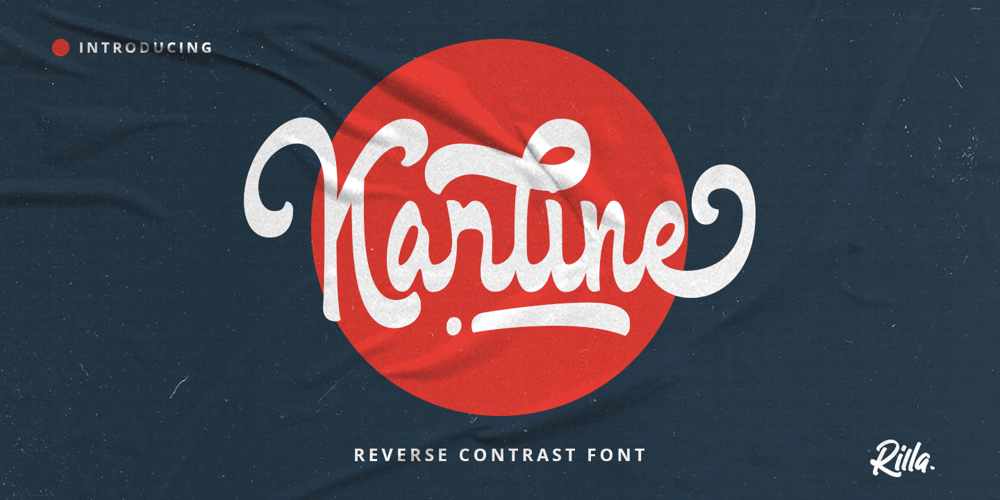
Karline Font Family was designed by Gustian Agung Asprilla and published by Rillatype. Karline contains 1 styles and family package options. Introducing, Karline! Karline is a reversed contrast font that will fit perfectly into any of your design such as branding, packaging, headline, tshirt, branding, etc. This font also support multilingual support and PUA encoded already.